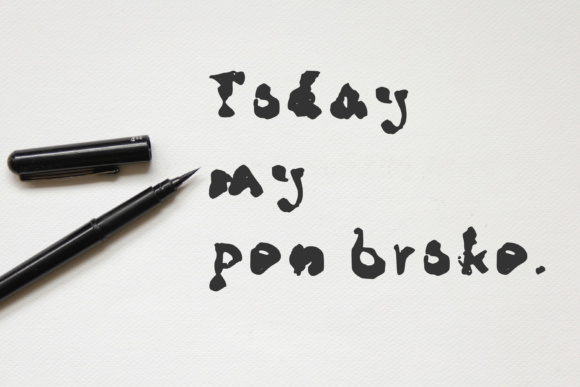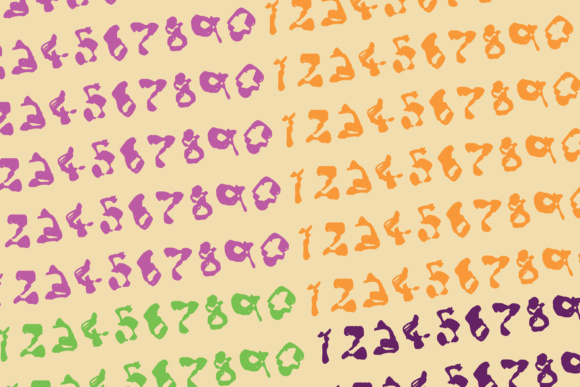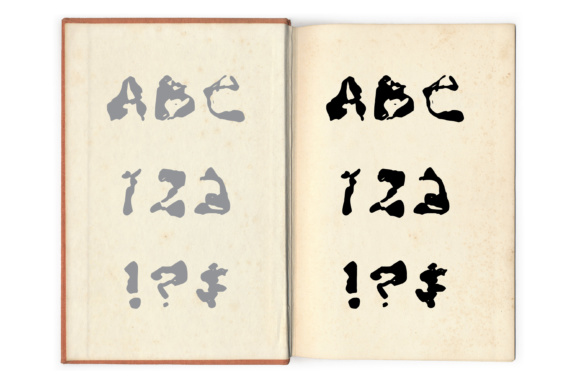
Busted Pen Font: A Quirky Typeface Inspired by Cheap Fountain Pens
Have you ever owned a cheap fountain pen, only to see it break or malfunction when exposed to high temperatures? If so, you’re probably familiar with the inky mess that ensues. Well, imagine that chaos in a typeface! Introducing the Busted Pen Font, a quirky and unique typeface that captures the essence of a broken or overheated fountain pen.
The Inspiration Behind Busted Pen Font
The Busted Pen Font is inspired by the unpredictable behavior of cheap fountain pens. When these pens break or get too hot, they can produce a range of unusual and intriguing effects, from ink splatters to messy blob-like characters. The font’s creator sought to capture these effects in a digital typeface that would add a touch of whimsy and playfulness to any design project.
What to Expect from Busted Pen Font
The Busted Pen Font includes a range of characters, including:
- Uppercase and lowercase letters (a-z)
- Numbers (0-9)
- Symbols and punctuation marks
Each character in the font has been carefully crafted to resemble the kind of inky mess that might be produced by a broken or overheated fountain pen. The result is a typeface that is both quirky and charming, with a unique aesthetic that is sure to add personality to any design project.
Using Busted Pen Font in Your Designs
The Busted Pen Font is perfect for designers and crafters who want to add a touch of whimsy and playfulness to their work. Here are a few ideas for using the font:
- Use it in a handmade or DIY-themed design project, such as a craft blog or a packaging design for a handmade product.
- Add it to a design project that requires a playful or humorous touch, such as a children’s book or a cartoon-style illustration.
- Experiment with it in a mixed-media or collage-style design project, combining the font with other textures and graphics to create a unique and eye-catching effect.
Tips for Working with Busted Pen Font
Here are a few tips for working with the Busted Pen Font:
- Experiment with different colors and textures to enhance the font’s quirky, inky aesthetic.
- Consider pairing the font with a more traditional or serif font to create an interesting contrast.
- Don’t be afraid to get creative and try out new and unusual design ideas – the Busted Pen Font is all about embracing imperfection and having fun!
The Busted Pen Font is a unique and quirky typeface that is sure to add a touch of personality to any design project. Inspired by the inky mess of a broken or overheated fountain pen, the font includes a range of characters, from uppercase and lowercase letters to numbers and symbols. Whether you’re a designer, crafter, or simply someone who loves to experiment with new and unusual typography, the Busted Pen Font is definitely worth checking out.